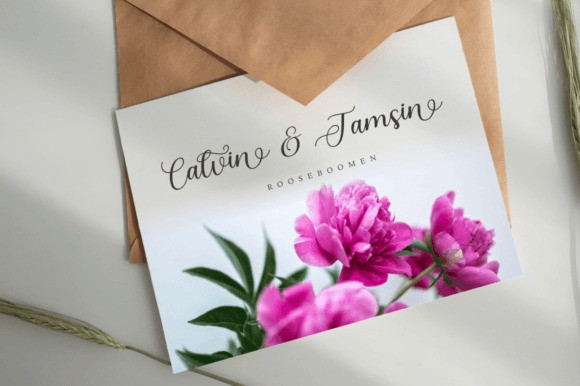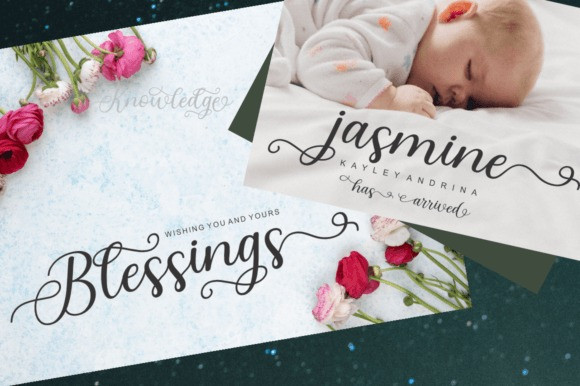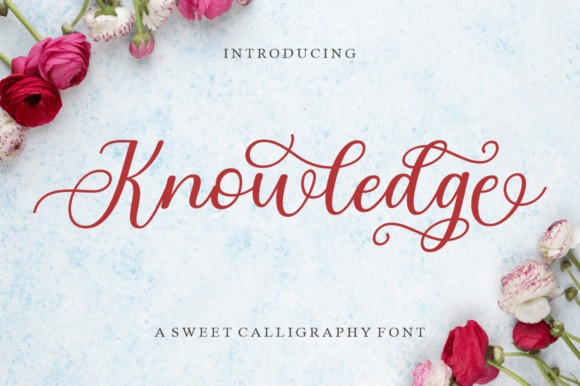
Knowledge Font
Knowledge Font is a stylish and incredibly elegant handwritten font. It looks stunning on wedding invitations, thank you cards, quotes, greeting cards, logos, business cards and every other design which needs a handwritten touch.